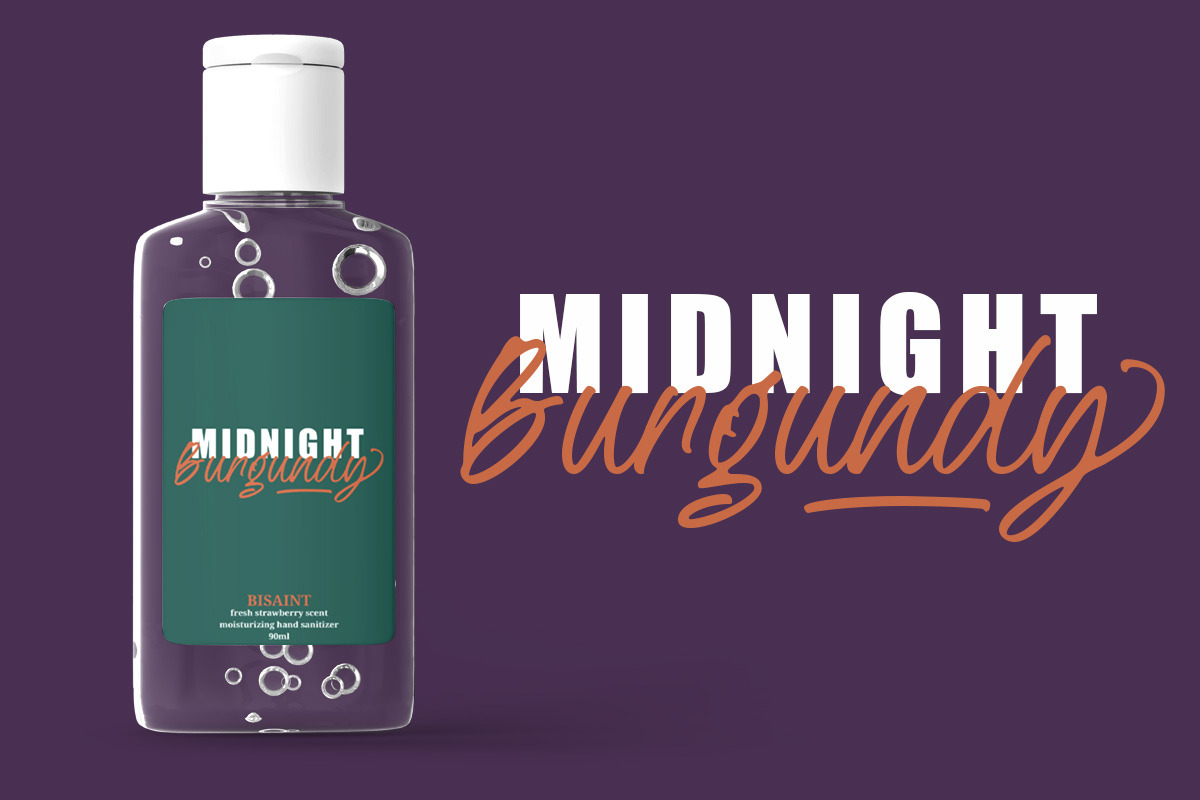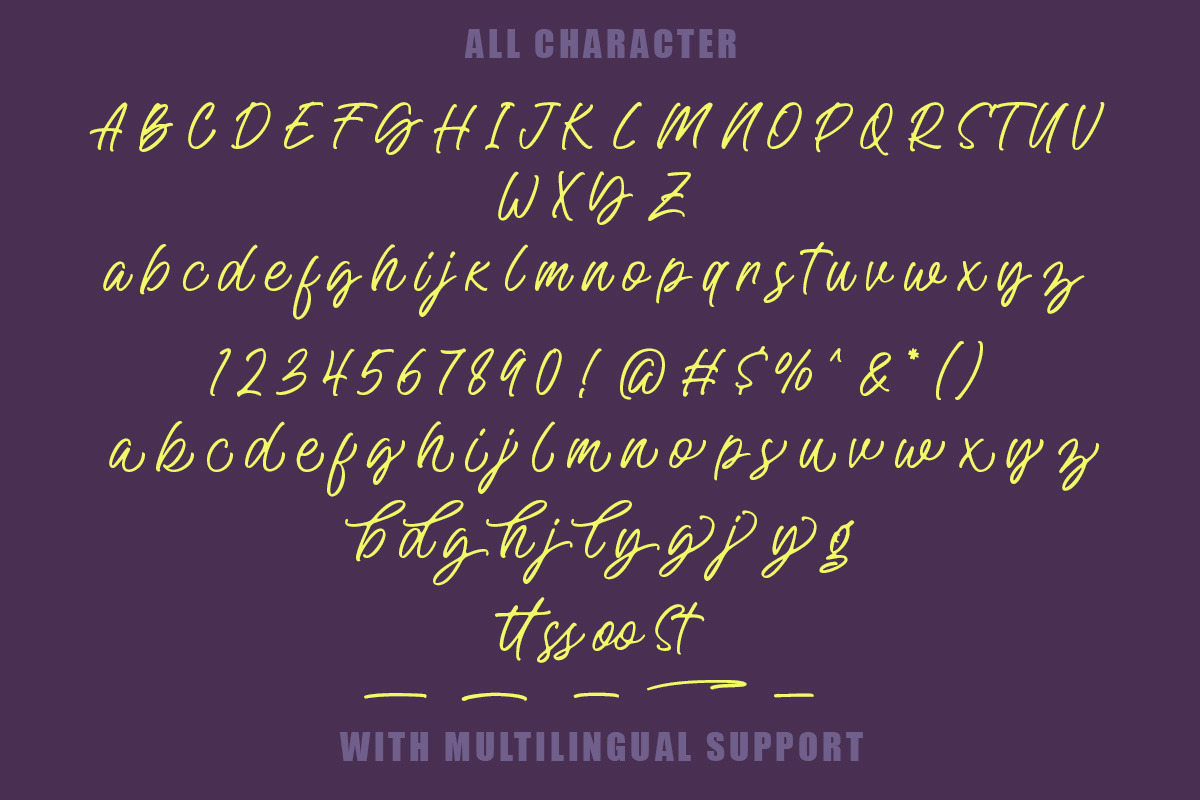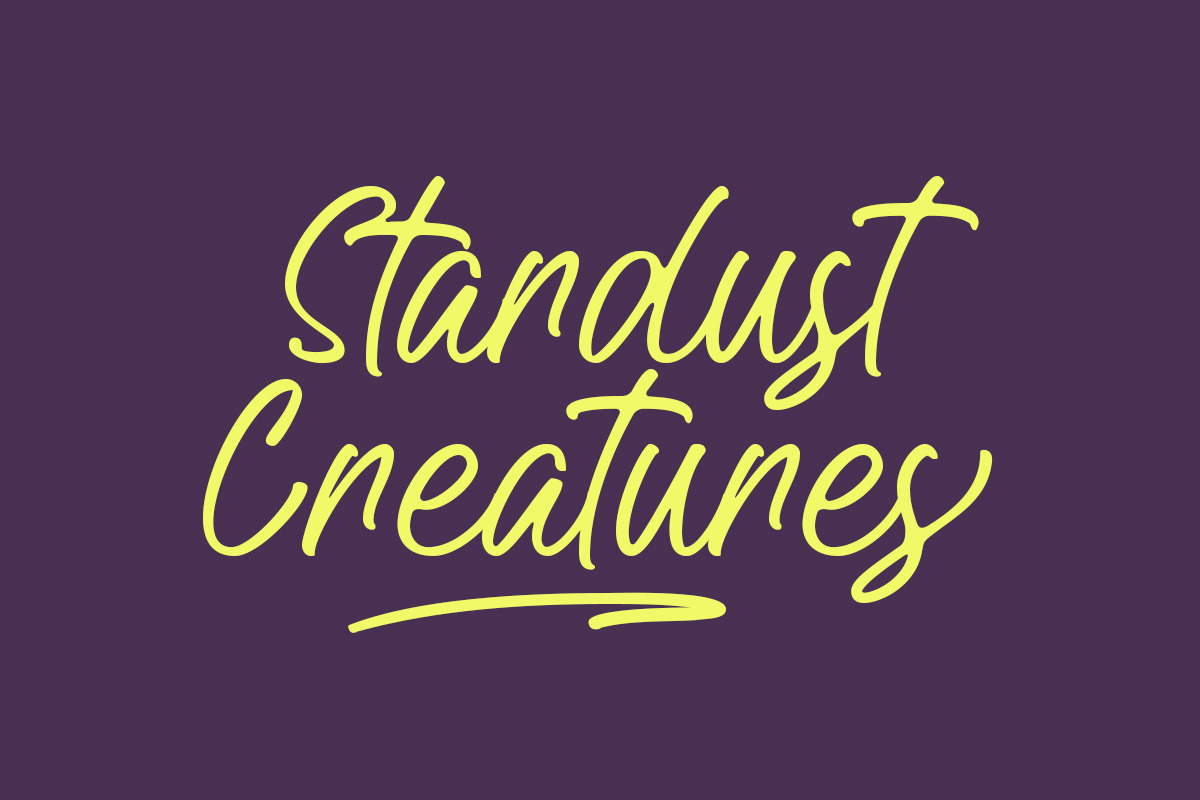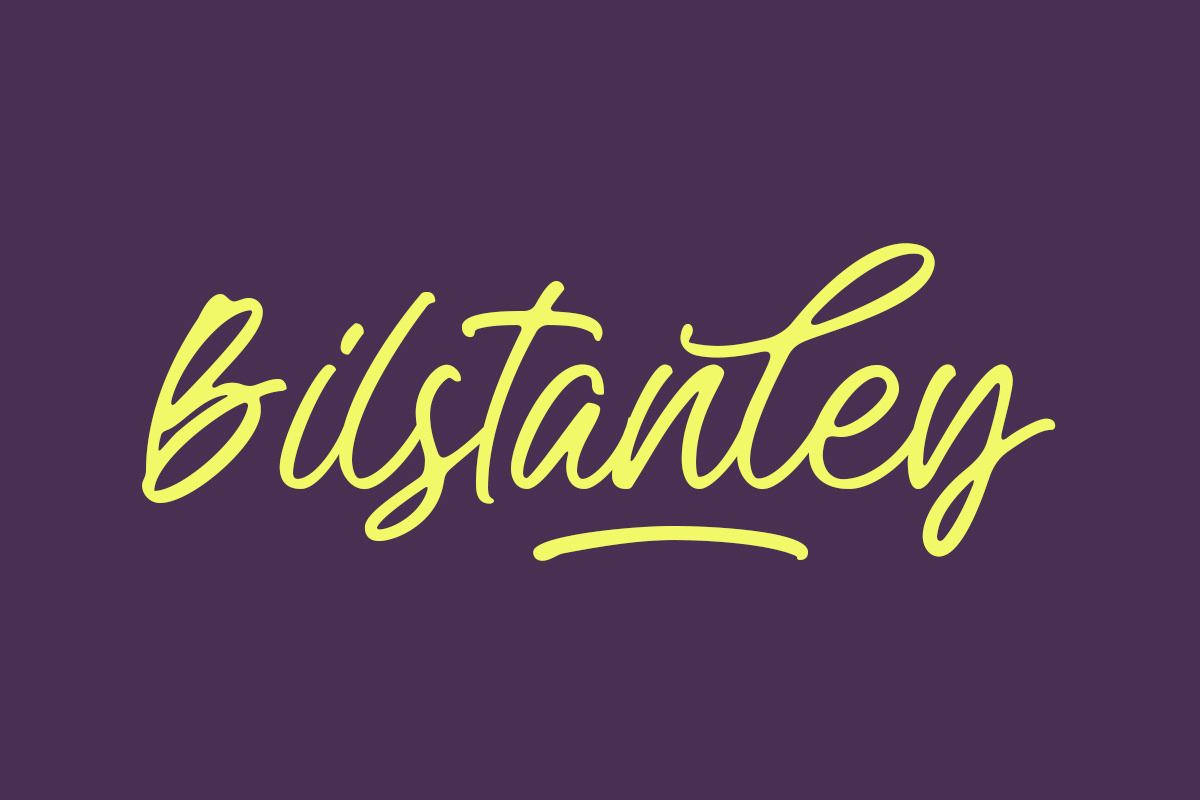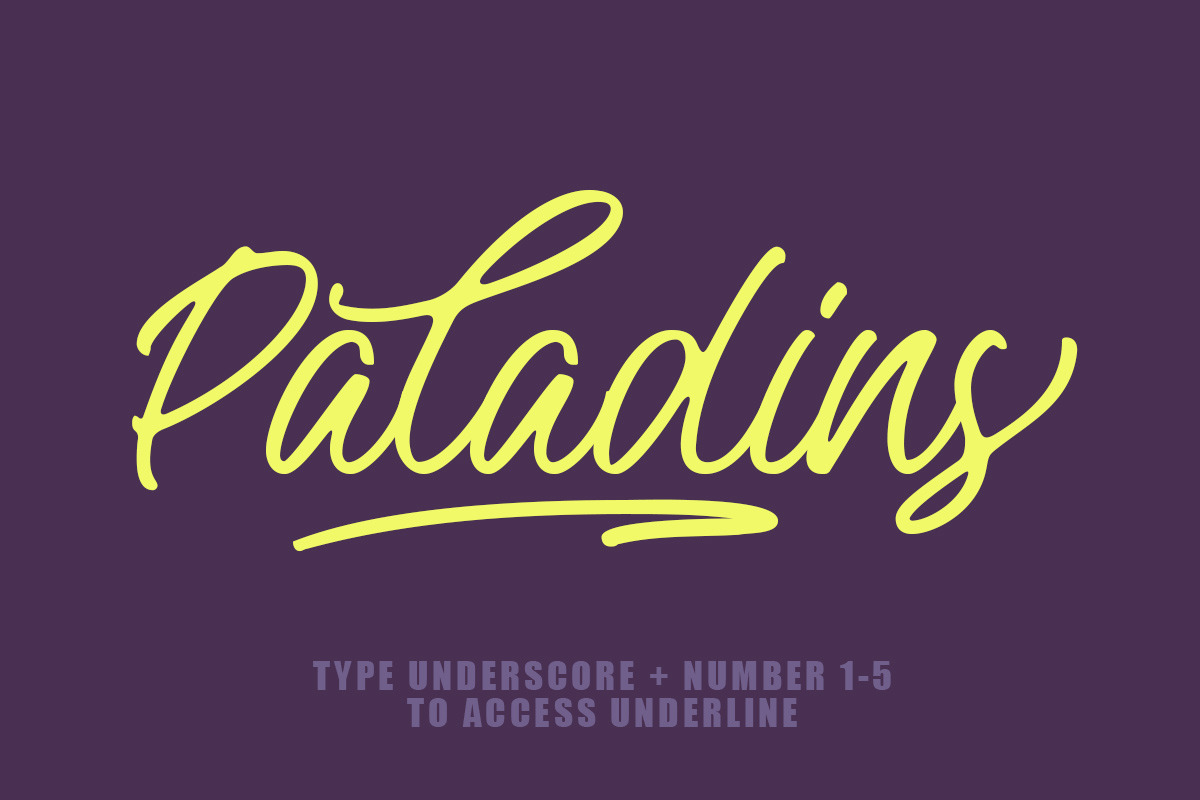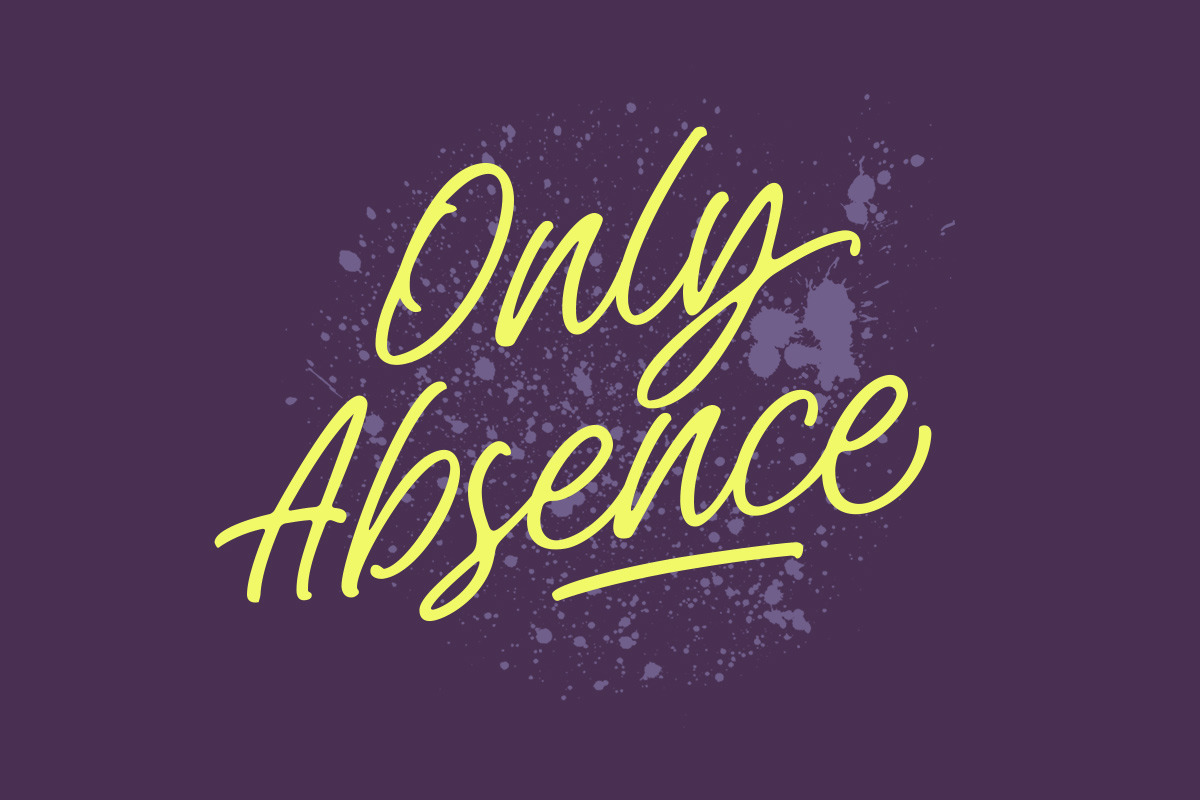
Gamata - Brush Script
Introducing, Gamata Brush Script Font. Gamata is a brush script with natural feel that make this font is perfect for branding, packaging, book, logol labels, etc.
- alternates / swashes and ligatures